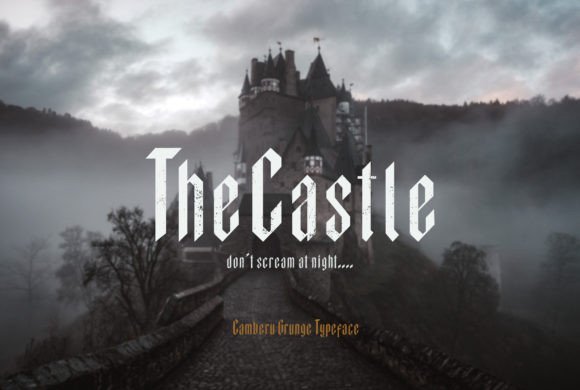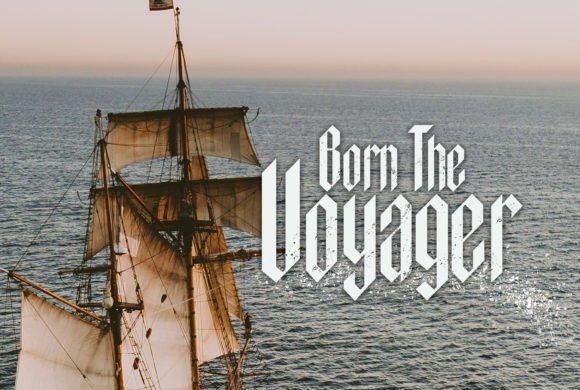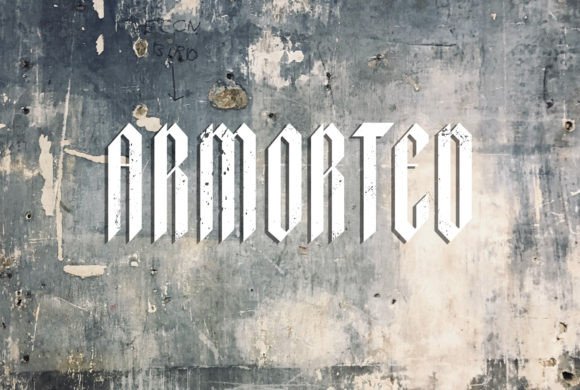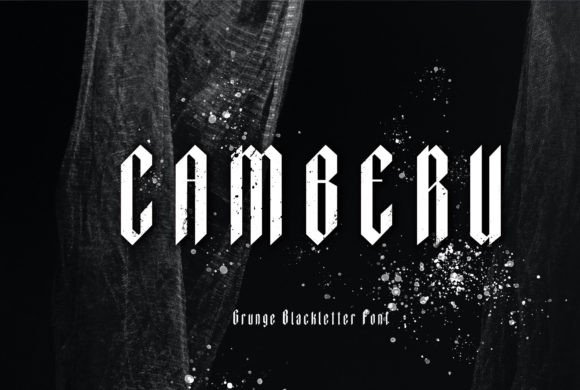
Introducing Camberu Font: The Ultimate Grunge Gothic Experience
Are you a designer or crafter looking for a font that adds a touch of edginess to your creative projects? Look no further than Camberu Font, a stunning black letter font in gothic style with a grunge effect. This versatile font is perfect for a wide range of applications, from posters and web design to branding, illustrations, badges, t-shirt designs, and more.
What Makes Camberu Font So Special?
Camberu Font is a unique and eye-catching typeface that combines the elegance of traditional gothic fonts with the raw energy of grunge design. The result is a font that is both bold and beautiful, with a distinctive look that is sure to grab attention. Whether you’re creating a bold poster, a striking logo, or a stylish t-shirt design, Camberu Font is the perfect choice.
Key Features of Camberu Font
- Uppercase Letters: Camberu Font includes a full set of uppercase letters, perfect for creating bold and eye-catching headlines.
- Numbers and Punctuation: The font also includes a wide variety of numbers and punctuation marks, making it perfect for creating detailed and informative designs.
- Gothic Style: Camberu Font is rooted in traditional gothic design, with elegant lines and curves that evoke a sense of history and sophistication.
- Grunge Effect: The font features a distinctive grunge effect, with rough edges and a distressed look that adds a touch of edginess to any design.
Uses for Camberu Font
Camberu Font is an incredibly versatile typeface that can be used in a wide range of creative projects. Here are just a few ideas to get you started:
- Posters: Create bold and eye-catching posters for concerts, festivals, or other events.
- Web Design: Use Camberu Font to add a touch of elegance and sophistication to your website.
- Branding: Create a striking logo or brand identity with Camberu Font.
- Illustrations: Add a touch of gothic elegance to your illustrations with Camberu Font.
- Badges: Create custom badges for t-shirts, hats, or other merchandise.
- T-Shirt Designs: Design eye-catching t-shirts with Camberu Font.
Why Choose Camberu Font?
With so many fonts to choose from, why should you choose Camberu Font? Here are just a few reasons:
- Unique Style: Camberu Font has a distinctive and eye-catching style that is sure to grab attention.
- Versatility: The font can be used in a wide range of creative projects, from posters to web design.